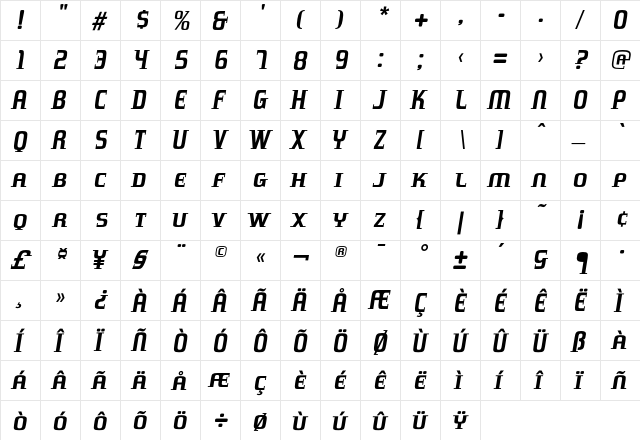
78London Fall Font Preview
78London Fall
Design Context for 78London Typeface
78London offers clean, dependable letterforms without strong stylistic allegiance, making it a practical choice for designers who need flexibility.